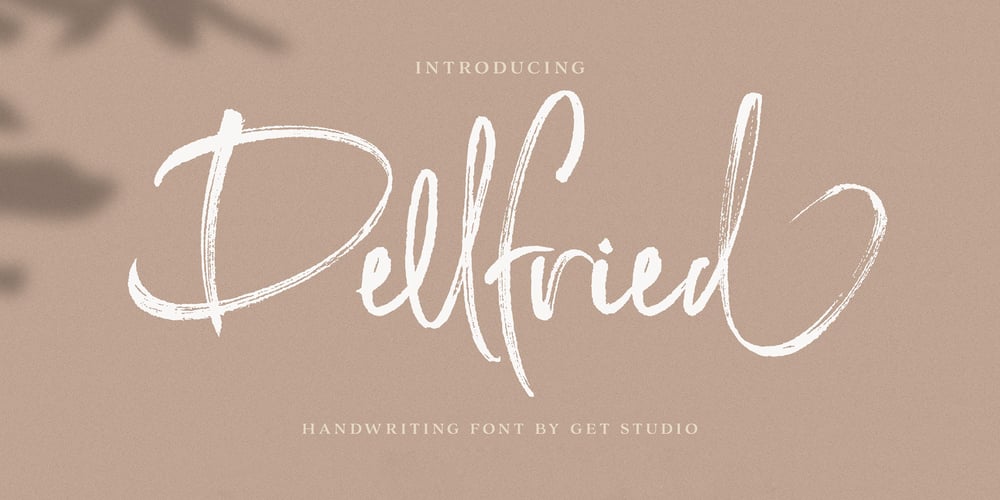
Dellfried Script Font Family was designed by Hermansyah and published by Get Studio. Dellfried Script contains 1 styles and family package options. Introducing Dellfried Script a handwritten font with a unique and bouncing character crafted with high-definition paint textures. It comes with alternate characters (OpenType feature).Dellfried Script can be used for various types of design needs such as branding materials, t-shirts, social media templates, business cards, logos, promotional flyers, posters, and more.With multilingual support, this font is also suitable to be combined with san-serif to get an extraordinary result for your design projects.